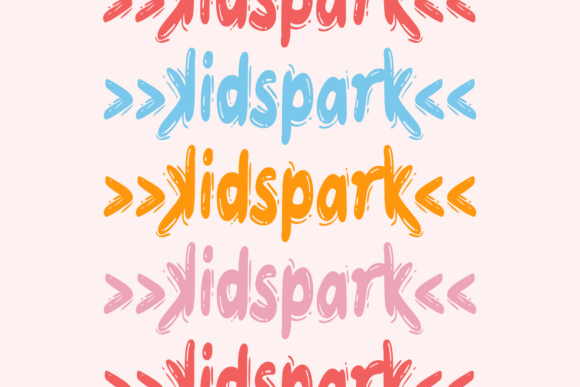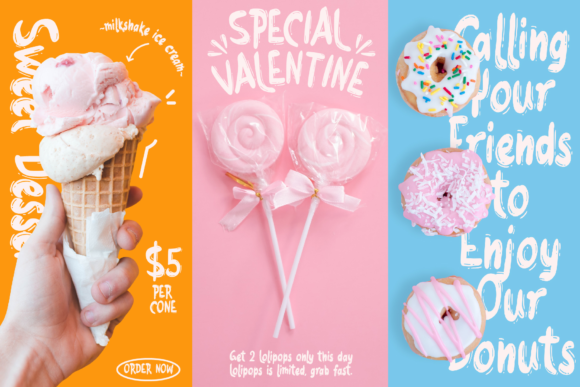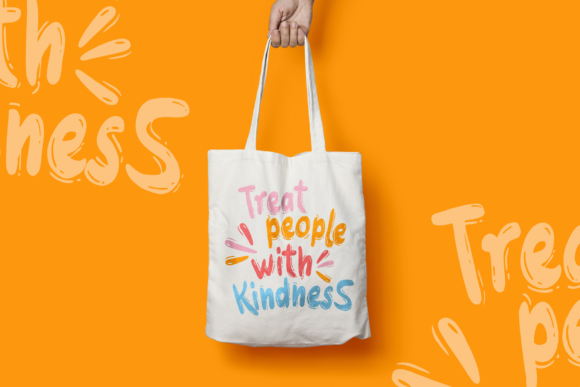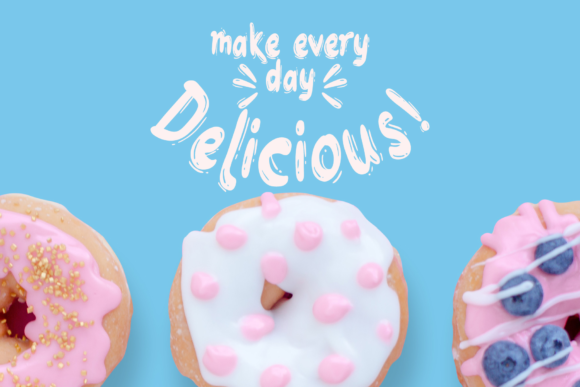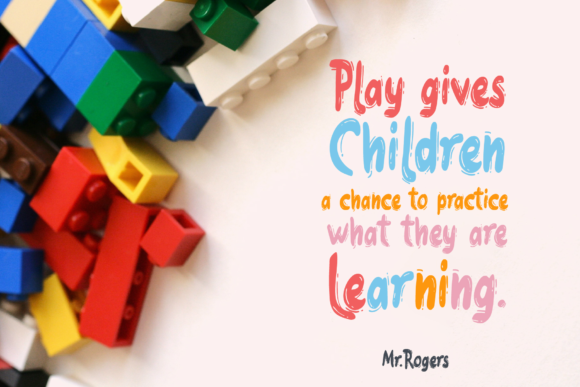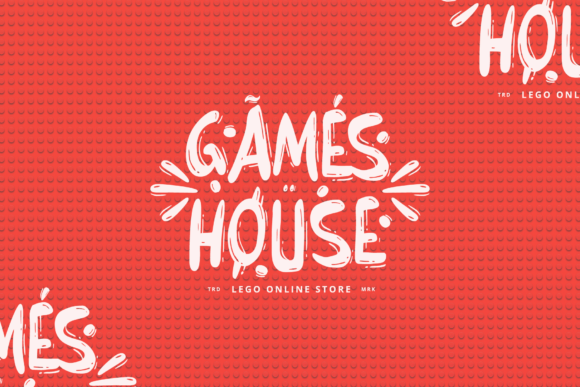
Introducing Bagel & Crackers Font: The Perfect Addition to Your Design Toolbox
Are you tired of using the same old fonts in your designs? Look no further than Bagel & Crackers Font, a fun and friendly display font that’s sure to bring a smile to your audience’s faces. With its playful and authentic vibe, this font is perfect for children’s themed designs, especially when paired with bright colors.
What Makes Bagel & Crackers Font So Special?
Bagel & Crackers Font is a unique and eye-catching font that’s designed to capture the imagination of your audience. Its fun and friendly style makes it perfect for a wide range of design projects, from children’s books and educational materials to craft projects and DIY tutorials. Whether you’re a designer, crafter, or DIY enthusiast, this font is sure to become a favorite in your toolbox.
Key Features of Bagel & Crackers Font
- Playful and Authentic Style: Bagel & Crackers Font has a fun and friendly style that’s perfect for children’s themed designs.
- Display Font: This font is designed to make a statement, making it perfect for headings, titles, and other display text.
- Easy to Read: Despite its playful style, Bagel & Crackers Font is easy to read, making it perfect for use in a wide range of design projects.
- Versatile: This font can be used in a wide range of design projects, from digital designs to print materials.
Perfect for Children’s Themed Designs
Bagel & Crackers Font is perfect for children’s themed designs, including:
- Children’s Books: Use Bagel & Crackers Font to create engaging and interactive children’s books that will delight kids and parents alike.
- Educational Materials: This font is perfect for educational materials, such as worksheets, activity sheets, and other learning resources.
- Craft Projects: Use Bagel & Crackers Font to add a playful touch to your craft projects, such as DIY tutorials, knitting patterns, and other handmade items.
Tips for Using Bagel & Crackers Font
Here are some tips for getting the most out of Bagel & Crackers Font:
- Pair with Bright Colors: Bagel & Crackers Font looks amazing when paired with bright colors, making it perfect for children’s themed designs.
- Use for Headings and Titles: This font is designed to make a statement, making it perfect for headings and titles.
- Experiment with Different Sizes: Bagel & Crackers Font looks great in a wide range of sizes, from small to large.
Bagel & Crackers Font is a fun and friendly display font that’s perfect for children’s themed designs. With its playful and authentic style, this font is sure to bring a smile to your audience’s faces. Whether you’re a designer, crafter, or DIY enthusiast, Bagel & Crackers Font is a great addition to your toolbox.